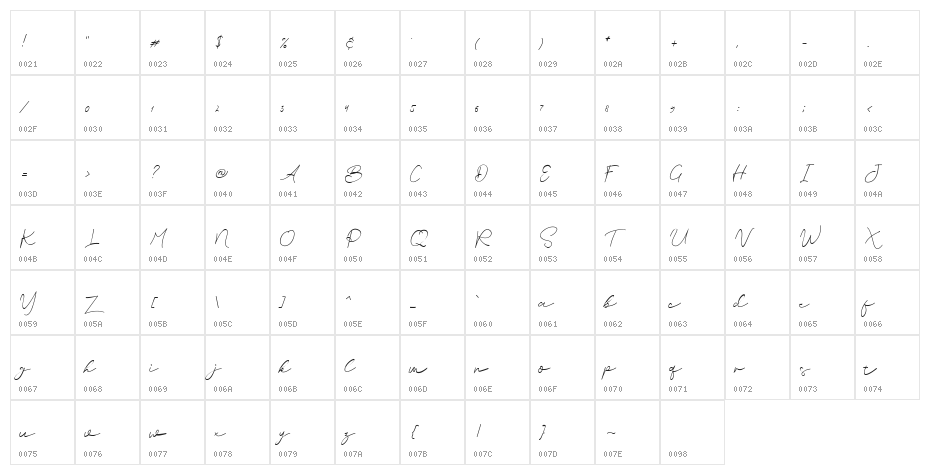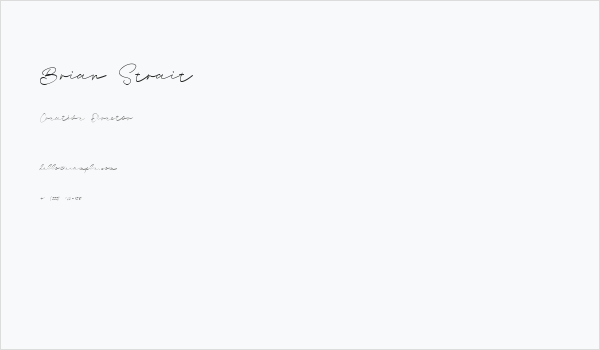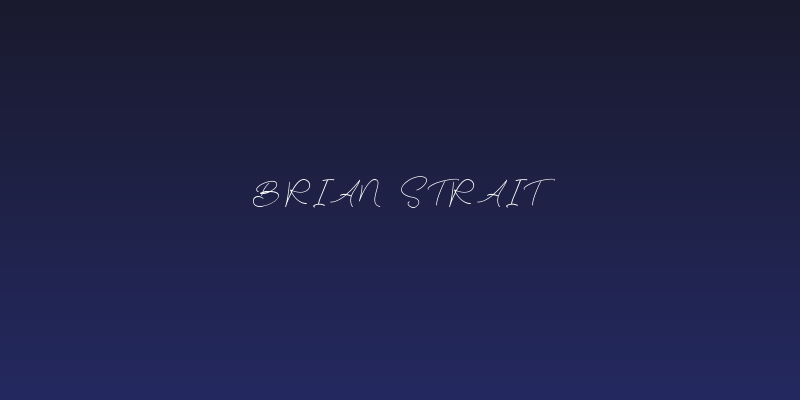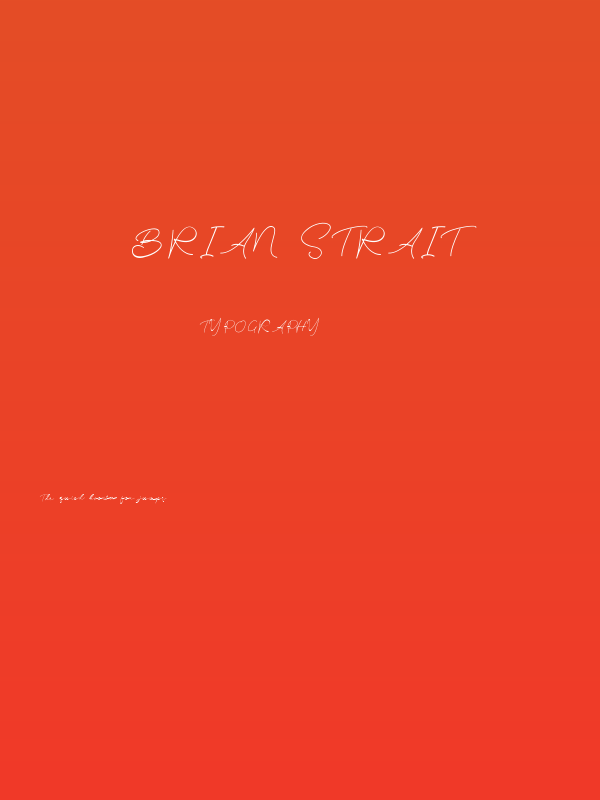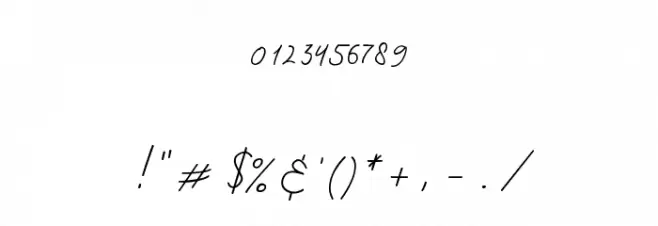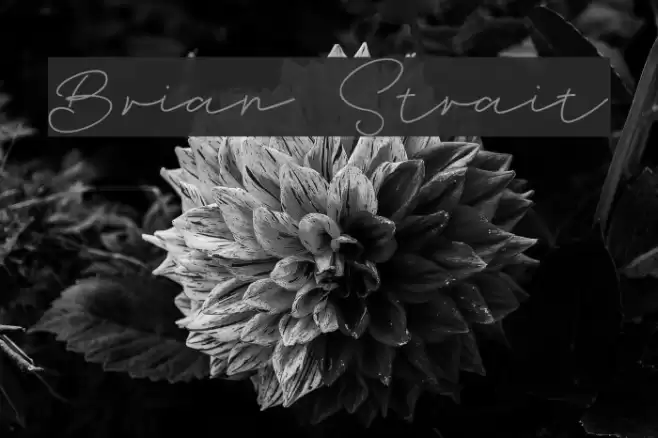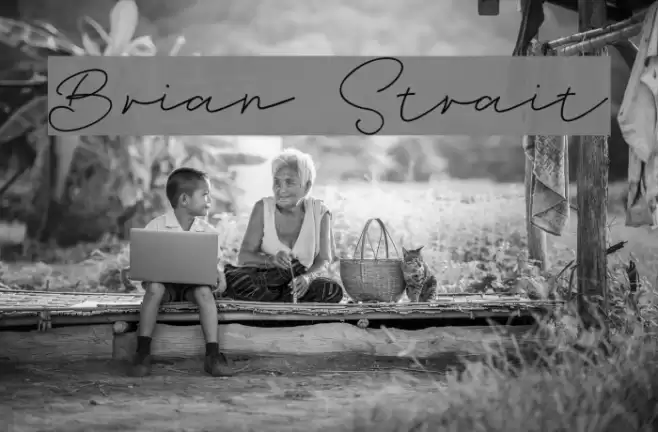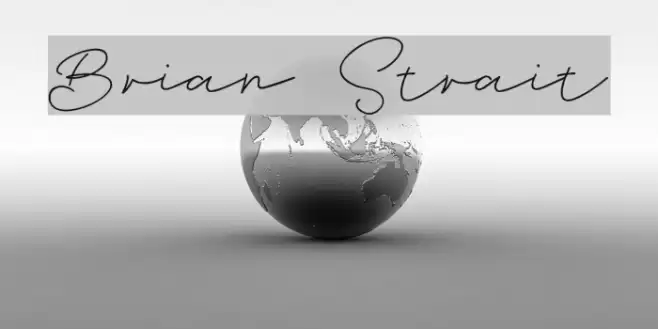
Brian Strait Font
Brian Strait Description
This font exudes a delicate and elegant handwritten style, characterized by its flowing and interconnected letterforms. The uppercase letters are slightly more structured, maintaining a graceful yet casual appearance, while the lowercase letters exhibit a more fluid and cursive nature. The numerals and special characters complement the overall aesthetic, maintaining the same handwritten charm. The strokes are consistent in width, contributing to a harmonious and balanced look. This font is ideal for projects that require a personal touch, such as invitations, greeting cards, and branding materials.
| Overall Style | Elegant, Casual |
| Proposed Projects | Ideal for invitations, greeting cards, branding materials, and personal notes. |